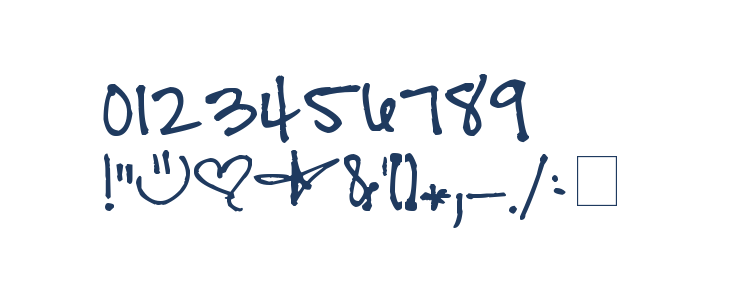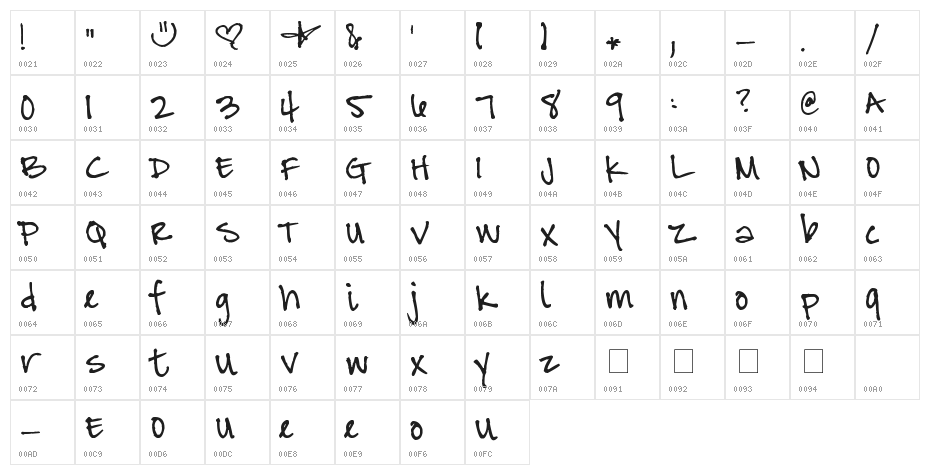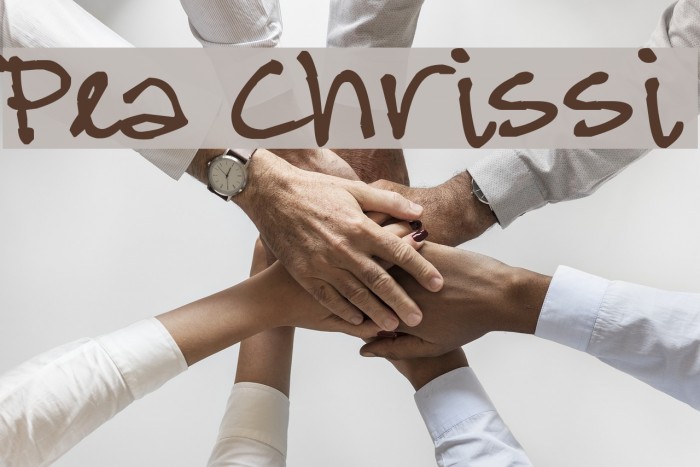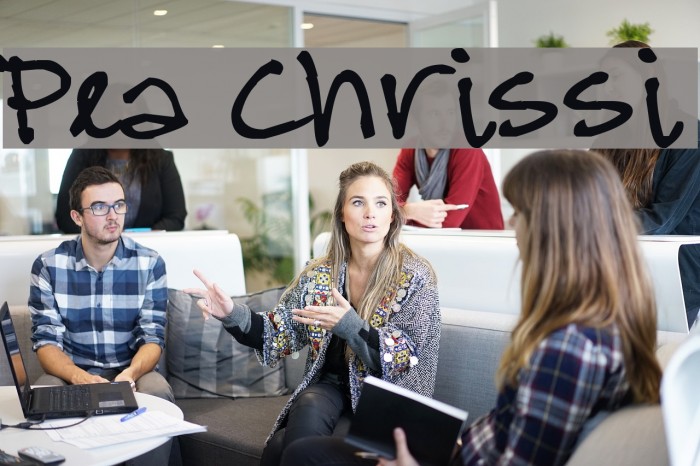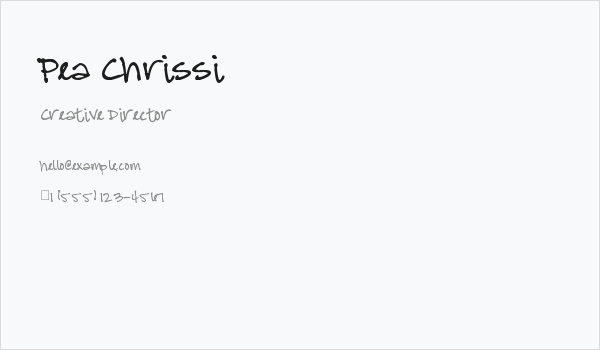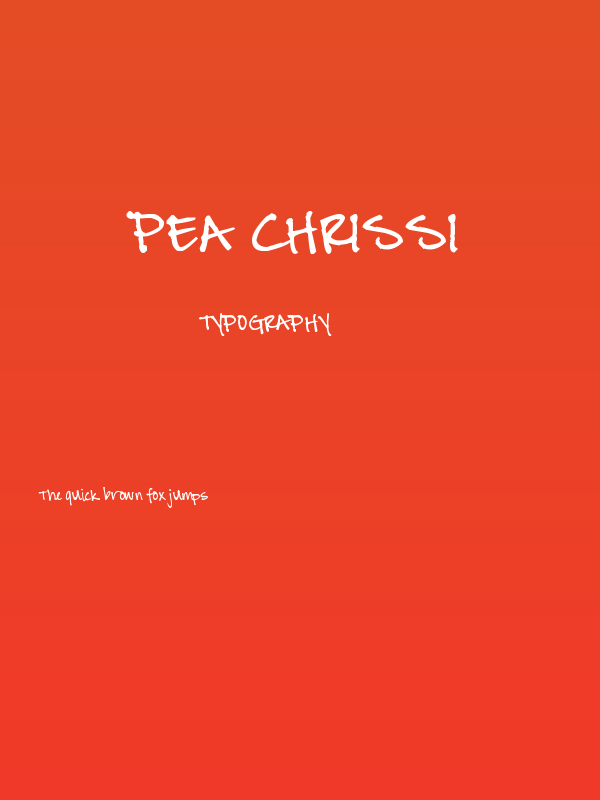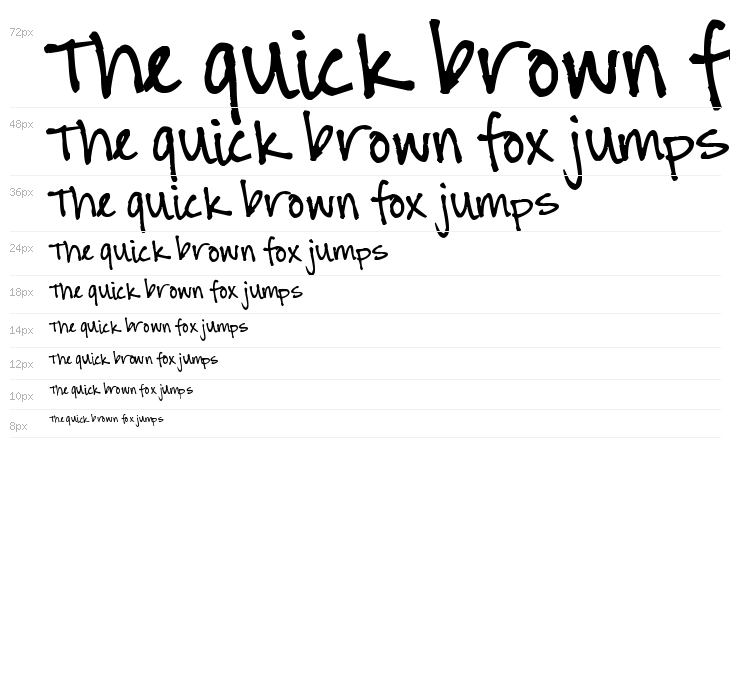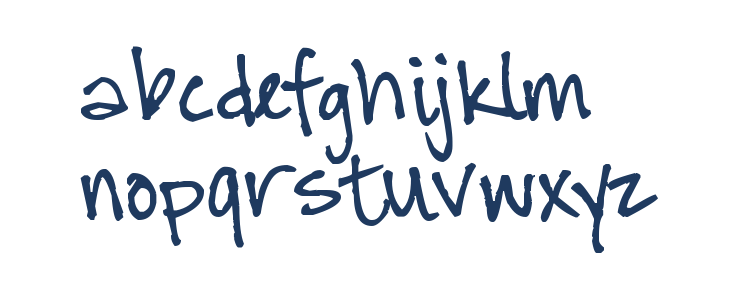
Pea Chrissi Font
Pea Chrissi Description
This font exudes a playful and casual handwritten style, characterized by its irregular strokes and spontaneous appearance. The letters are slightly slanted, giving a dynamic and lively feel. The uppercase and lowercase letters maintain a consistent flow, while the numbers and special characters add a quirky touch. The overall design is informal, making it ideal for projects that require a personal or friendly tone. Its unique charm lies in the imperfect, organic shapes that mimic natural handwriting.
| Use Case | Logos, Greeting Cards, Personal Notes |
| Proposed Projects | Great for personal notes, greeting cards, informal invitations, and creative projects that need a personal touch. |